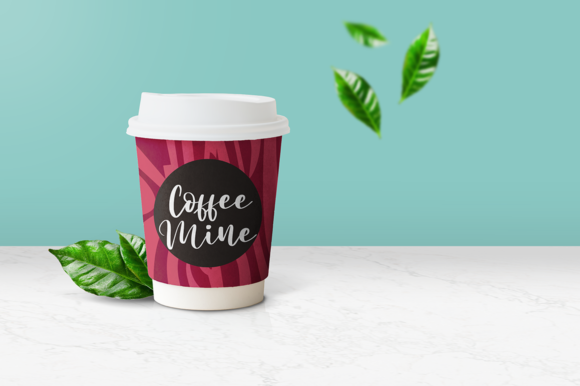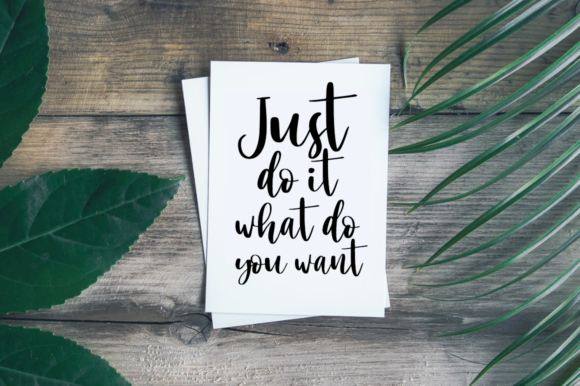
Mango Salsa Font
db-ku.com - Script & Handwritten -- Mango Salsa simplifies elegance into one truly outstanding handwritten font. It maintains its classy calligraphic influences while feeling contemporary and fresh. This versatility will appeal to a wide range of crafty ideas, from letterheads and titles, to stationery.